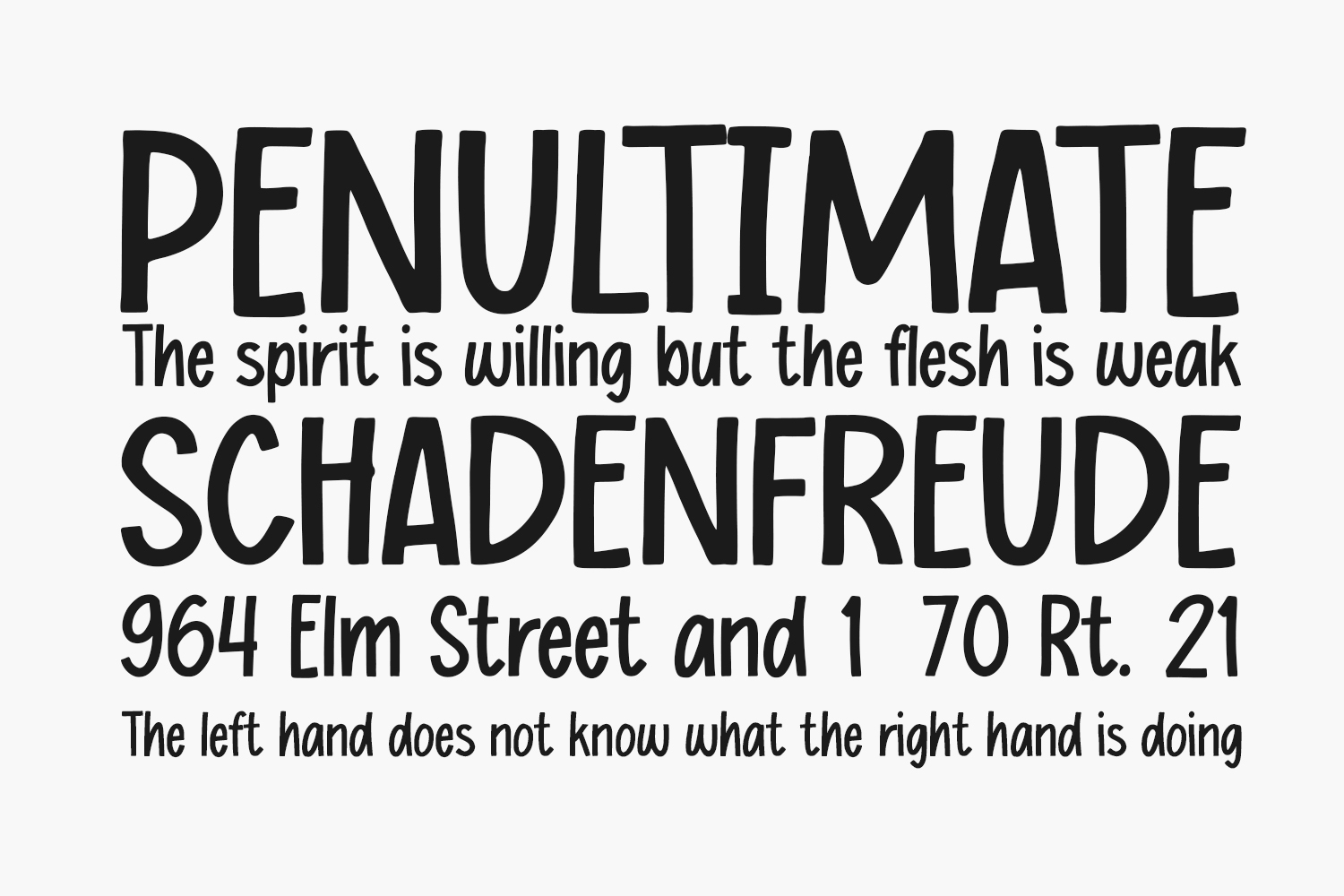
Little Boy Free Font delights with its playful display font featuring adorable and skillfully crafted characters, complemented by a charming natural texture. Elevate your photography watermarks, logos, branding, invitations, advertisements, product packaging, stationery, wedding designs, labels, and more with this versatile typeface. With its innate, hand-drawn charm, Little Boy adds a touch of nature and exquisite details to your projects. Inspired by a fusion of food logos and endearing crafty styles, this font caters to diverse design needs. Whether you’re working on sporty themes, logotypes, wordmarks, or any creative endeavor, Little Boy is poised to bring character and charm to your every project. Little Boy Free Font is free for personal use only. Please purchase the full version for commercial use.
Designed by Gassstype